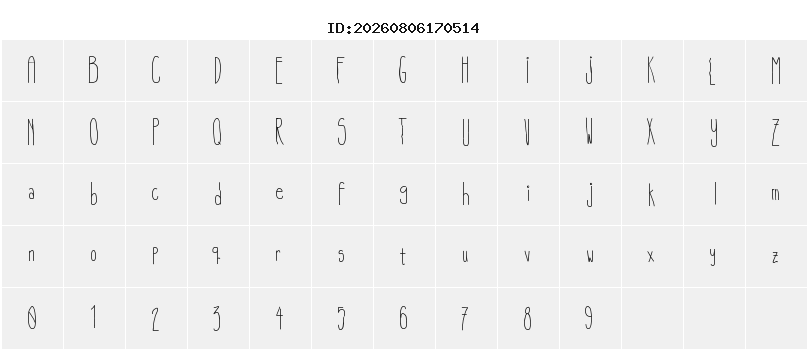
• Font Name: OlivesFont
• Full Font Name: OlivesFont
OlivesFont.ttf is a modern, elegant sans-serif font designed for ultimate readability and visual harmony. Perfect for branding, headlines, web design, and print materials.